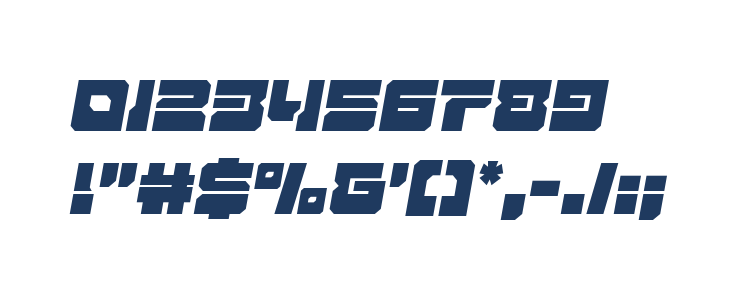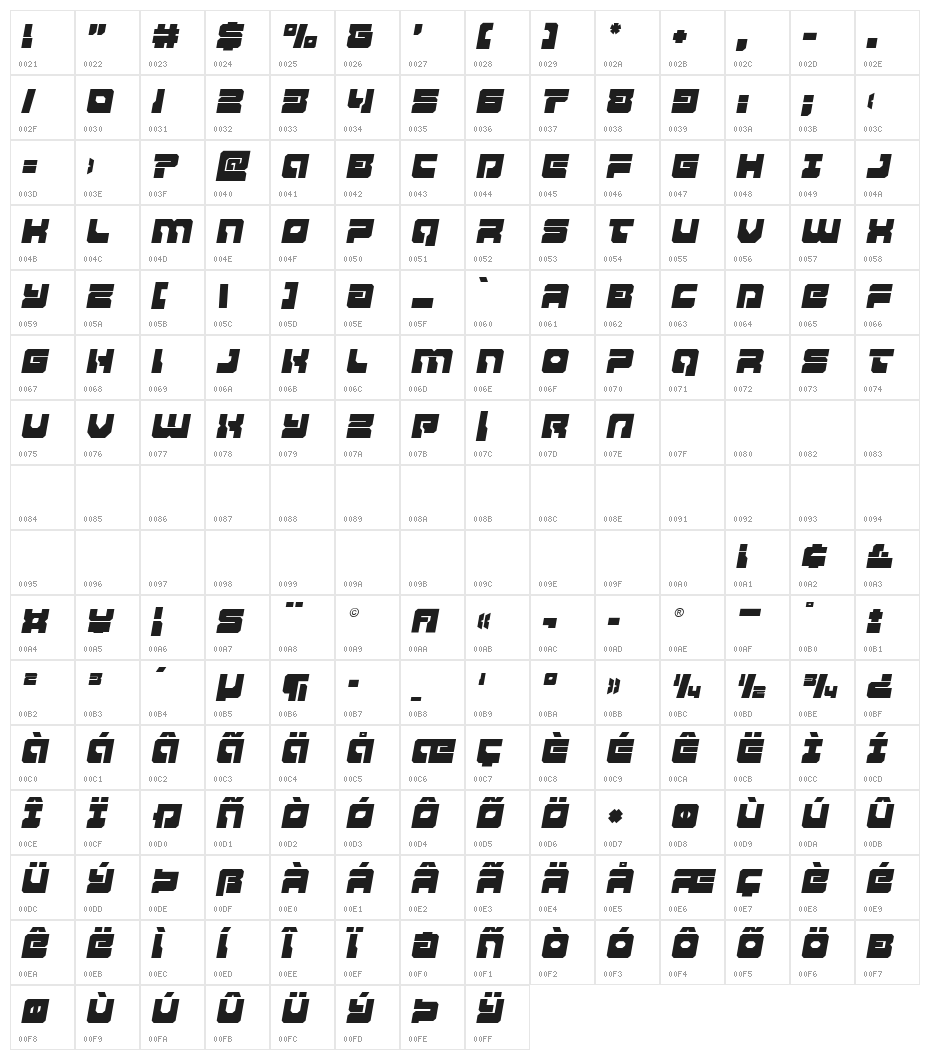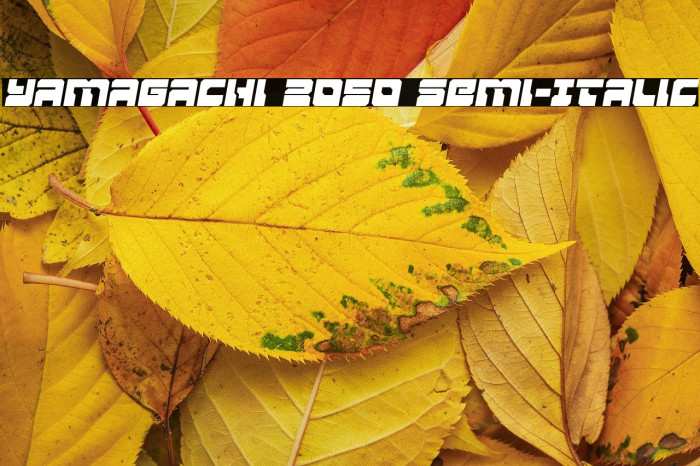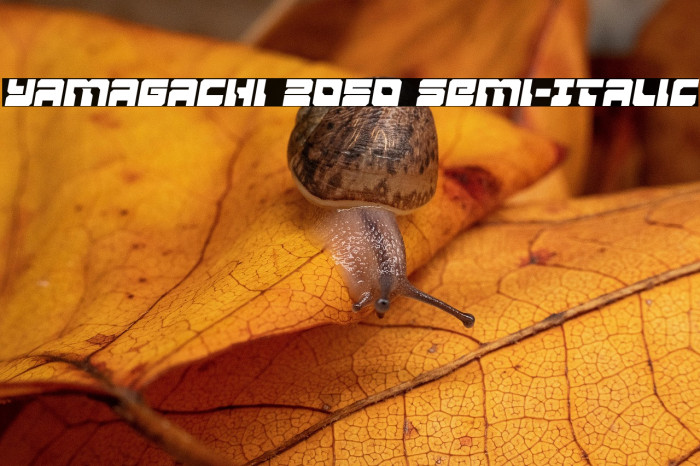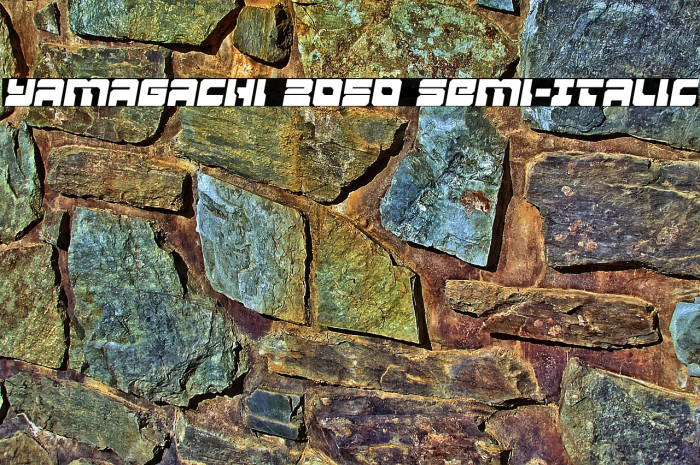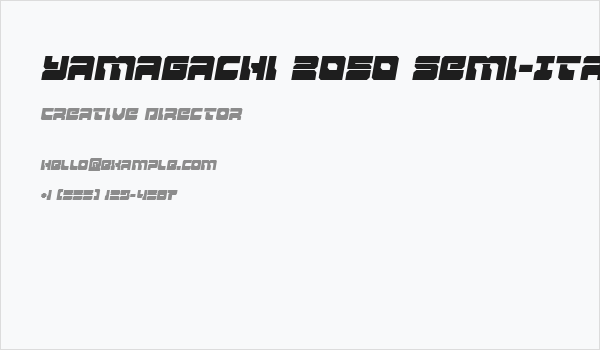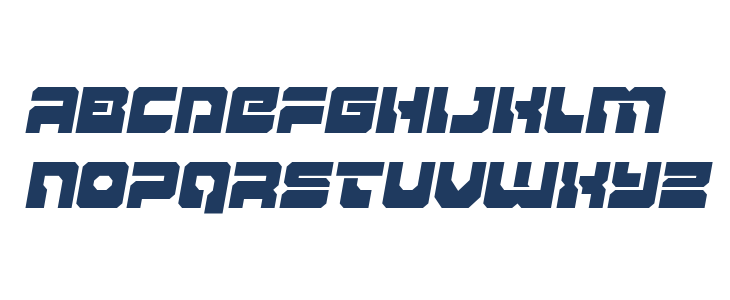
Yamagachi 2050 Semi-Italic Font
Yamagachi 2050 Semi-Italic Description
This font features a futuristic and bold design with angular, geometric shapes that give it a strong, dynamic presence. The semi-italic style adds a sense of motion and speed, making it ideal for modern and tech-oriented projects. The uppercase and lowercase letters maintain a consistent style, with sharp edges and a slightly condensed form. The numerals and special characters follow the same design principles, ensuring uniformity across all glyphs. The font's unique style makes it stand out, perfect for attention-grabbing headlines or branding that requires a contemporary edge.
| Proposed Projects | Ideal for tech branding, sci-fi posters, video game titles, and modern advertisements. |